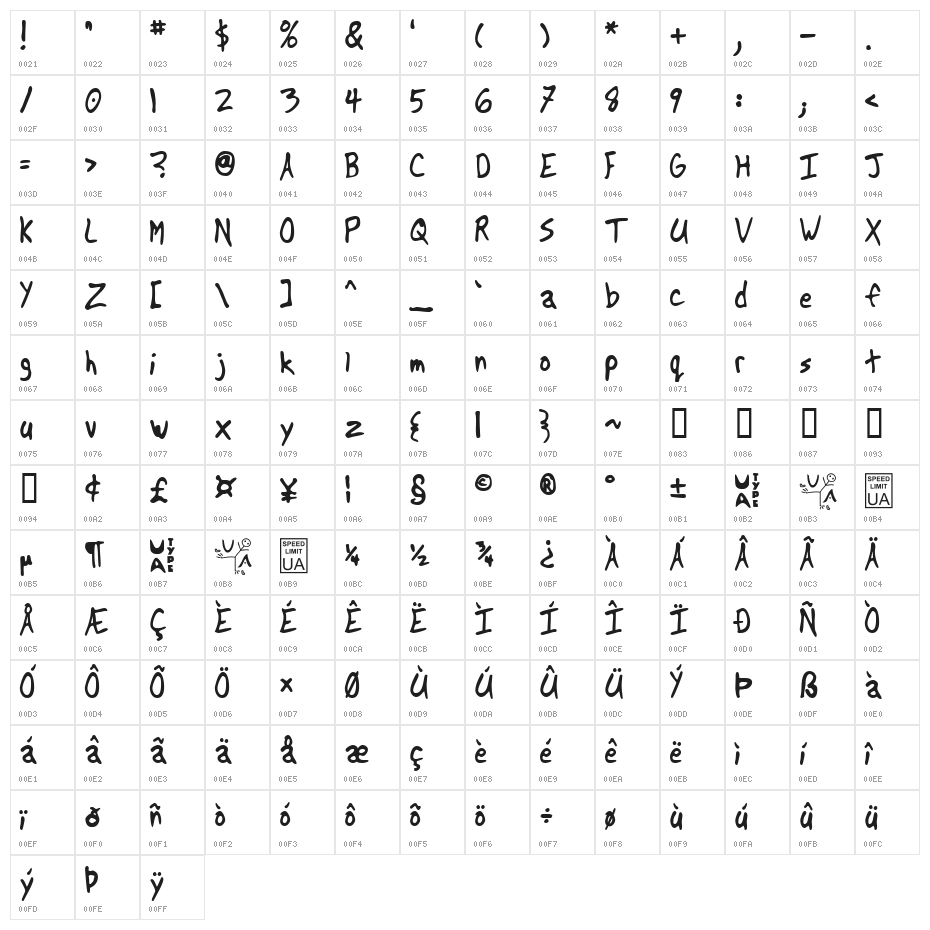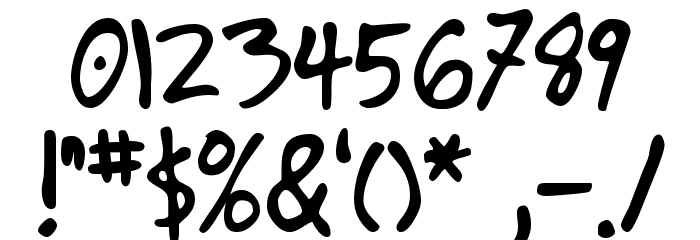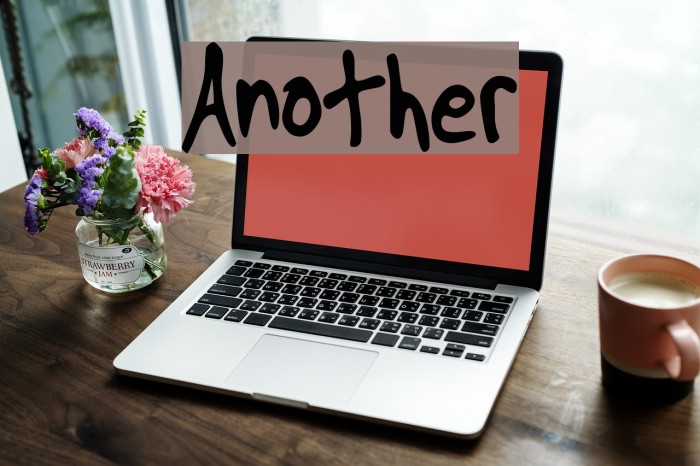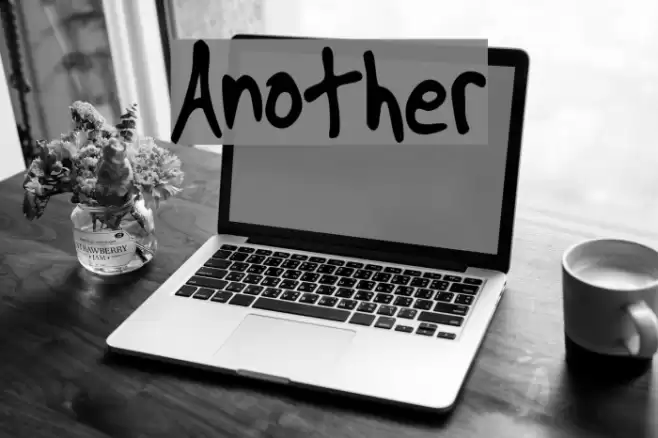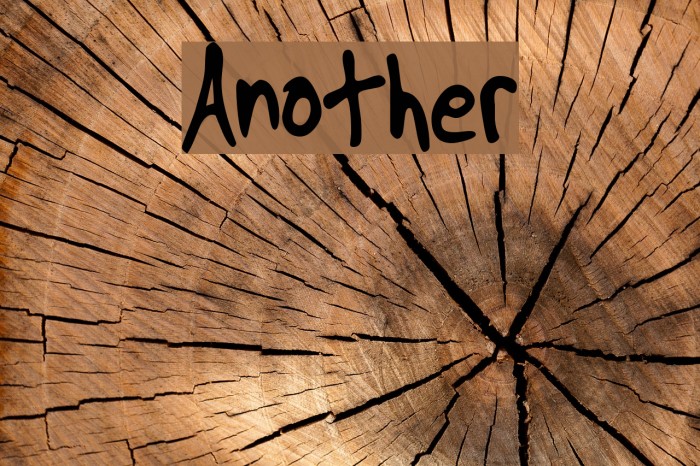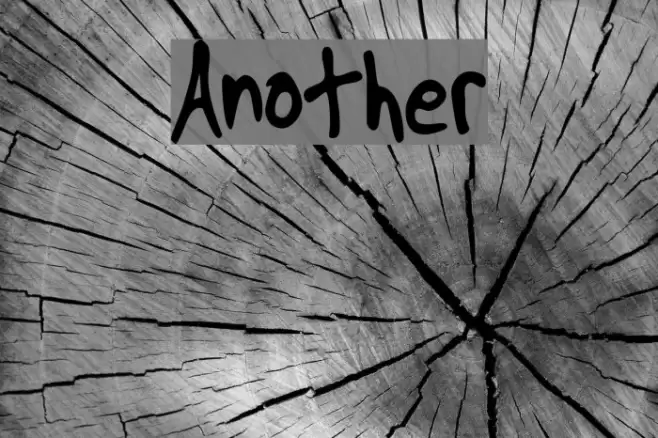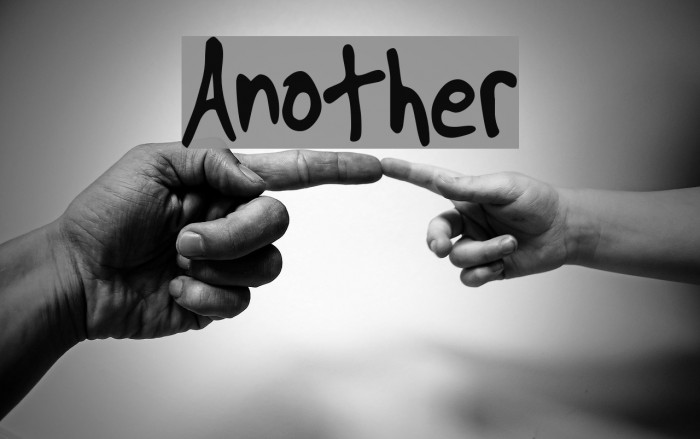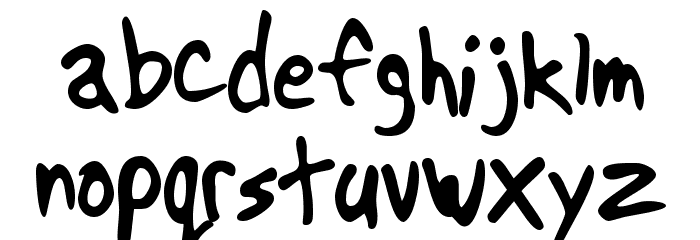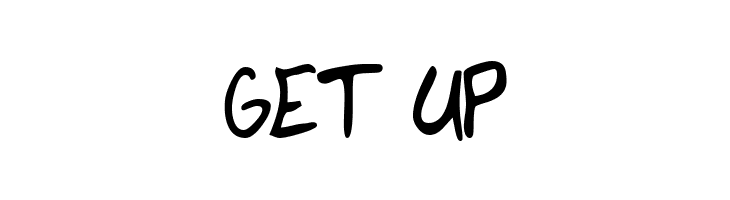
Another Font
Another Description
This font features a playful and casual handwritten style, characterized by its irregular, slightly wavy lines that give it an informal and friendly appearance. The letters are bold and rounded, with a consistent stroke width that maintains readability while adding a touch of whimsy. The uppercase and lowercase letters are distinct yet harmoniously designed, with the lowercase letters slightly smaller and more compact. Numbers and special characters follow the same playful aesthetic, making the font versatile for various creative applications. Its overall appearance is approachable and lively, suitable for projects that require a personal touch.
| Overall Style | Casual, Playful |
| Use Case | Headlines, Informal text, Creative projects |
| Proposed Projects | Ideal for children's books, greeting cards, casual branding, and social media graphics. |